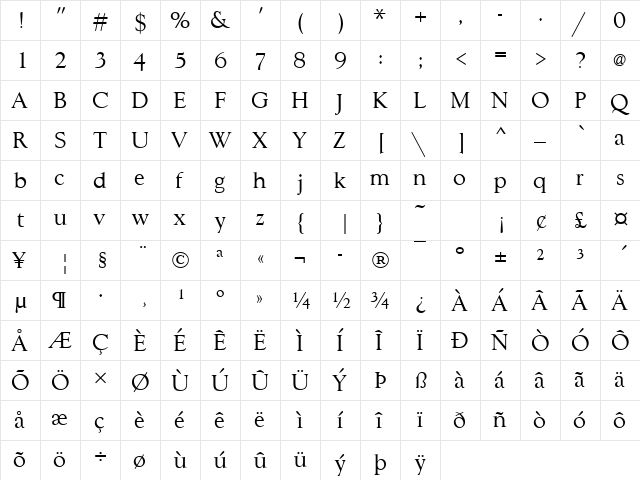
GoudyWtcT Regular
Design Context for GoudyWtcT Typeface
GoudyWtcT offers clean, dependable letterforms without strong stylistic allegiance, making it a practical choice for designers who need flexibility.